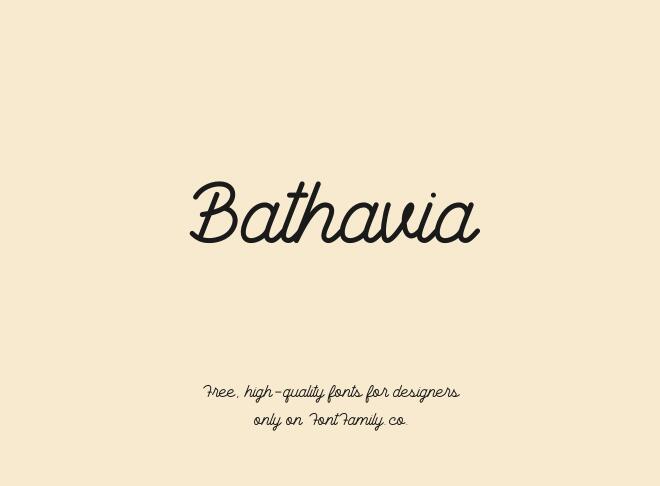
Bathavia Font
Bathavia Font is a beautiful handwritten script typeface that exudes elegance and sophistication. Created by Fontastica Foundry, this font introduces a touch of refinement and luxury to any design. With its delicate curves and fluid lines, Bathavia Font mimics the natural rhythm of handwriting, making it perfect for logos, invitations, stationery, and more. This font stands out for its versatility, equally effective in bold headlines or delicate typography. It's comparable to fonts like 'Great Vibes' and 'Alex Brush', but with a unique twist that makes it a must-have in every designer's toolkit. Download Bathavia Font for free and elevate your design work with its timeless elegance and charm.